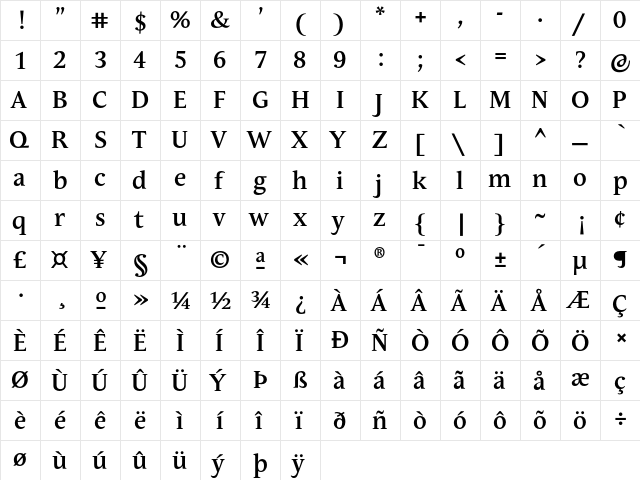
Andulka Book Pro Bold
| Designer | Frantisek Storm |
Design Context for Andulka Book Pro Typeface
Andulka Book Pro takes a measured approach to typography — its balanced proportions and neutral character make it a reliable workhorse for both digital and print work. The heavy weight commands attention and anchors typographic hierarchies.
Dating back to 2004, this typeface is available in OpenType (OTF) format.